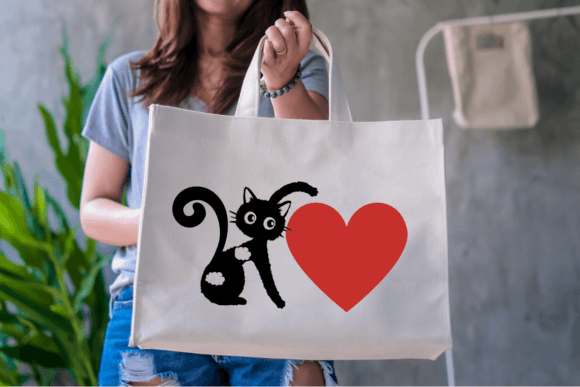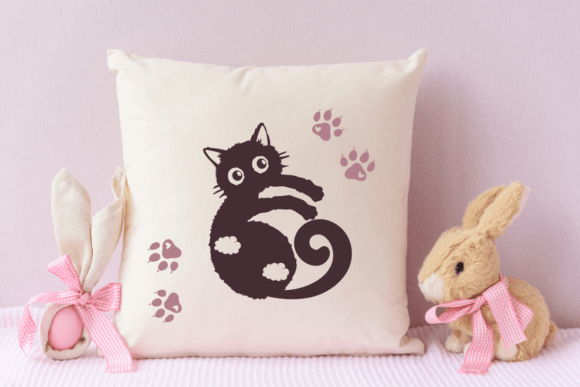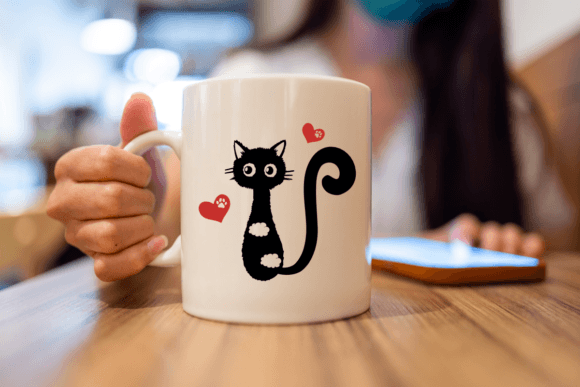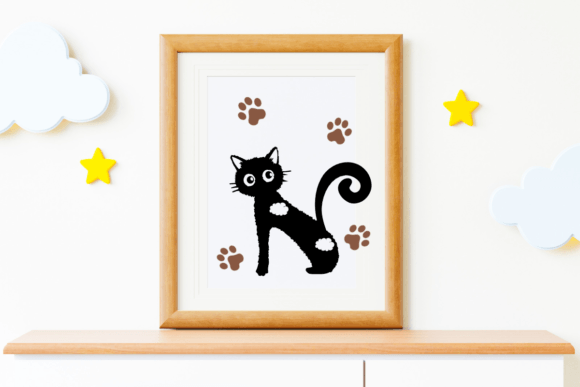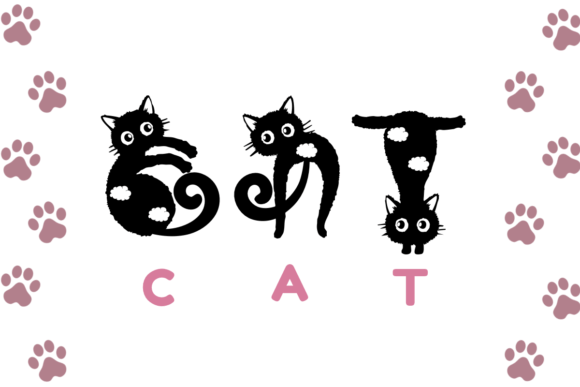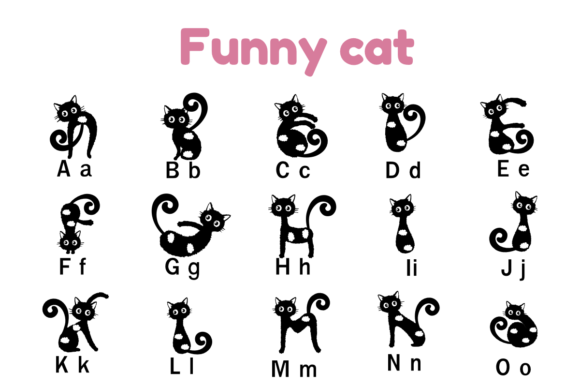
The Purr-fect Font: A Deep Dive into Funny Cat Font
I’ll never forget the time I was working on a whimsical cat-themed project for a client, and I just couldn’t find the right font to match the playful vibe. The client wanted something that would make their audience smile, and I was determined to deliver. That’s when I stumbled upon the Funny Cat font, and it was love at first sight! 🤩
This adorable dingbat font features a collection of fluffy cat illustrations, each one showcasing a unique pose or expression. It was exactly what I needed to bring my design to life. In this article, I’ll share my experience with Funny Cat font, including what I love about it, some quirks to watch out for, and practical tips on how to use it in your designs.
- ✨ Adorable and playful cat illustrations that are sure to bring a smile to your audience’s face
- ✅ Easy to use and navigate, even for those who are new to dingbat fonts
- 💕 Perfect for a wide range of design projects, from invitations and greeting cards to social media graphics and more
While I absolutely love Funny Cat font, there are a few things to keep in mind:
- ⚠️ Some characters may not work well in smaller font sizes, so be sure to test them out before finalizing your design
- 🤔 The font may not be suitable for body text or lengthy content, as it’s primarily designed for headlines and decorative elements
The Designer Inspiration Behind Funny Cat Font
The Funny Cat font was designed by a talented artist who wanted to create a font that would bring a smile to people’s faces. Inspired by their own love of cats and playful design, they created a font that’s perfect for adding a whimsical touch to any design project. Whether you’re a designer, crafter, or creative hobbyist, Funny Cat font is sure to delight your audience and add a personal touch to your work.
| Font Name | Funny Cat Font |
| Author | Nun Sukhwan |
Q: What type of designs is Funny Cat font best suited for?
A: Funny Cat font is perfect for a wide range of design projects, including invitations, greeting cards, social media graphics, and more.